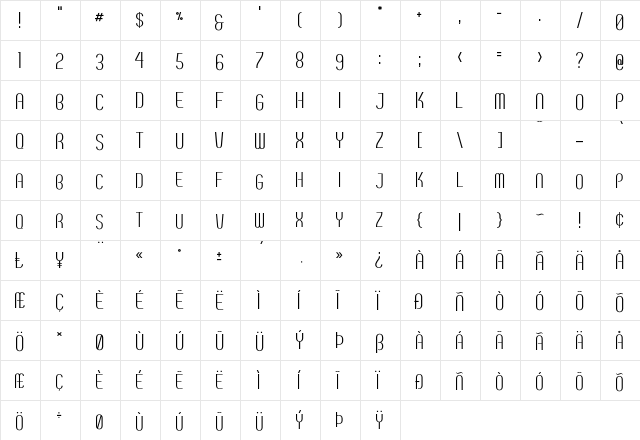
Breve SC Regular
Design Context for Breve SC Typeface
Breve SC offers clean, dependable letterforms without strong stylistic allegiance, making it a practical choice for designers who need flexibility.
Pro Tip: Use Breve SC in both headline and body roles to test its range before committing to a single application.